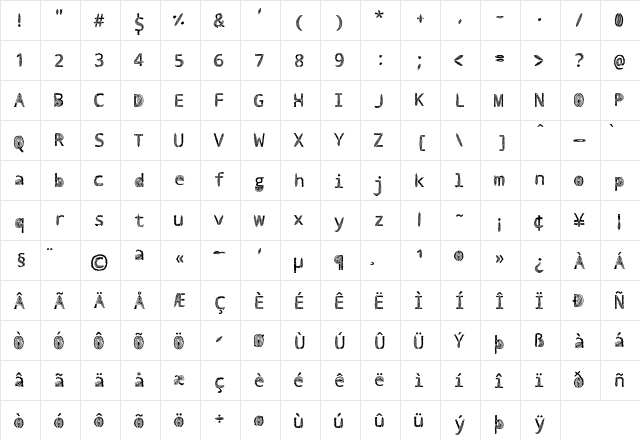
Vulva Typography Regular
| Designer | Felix Farjas |
Design Context for Vulva Typography Typeface
Vulva Typography is a composed and adaptable typeface that performs quietly and consistently across a wide range of design contexts.